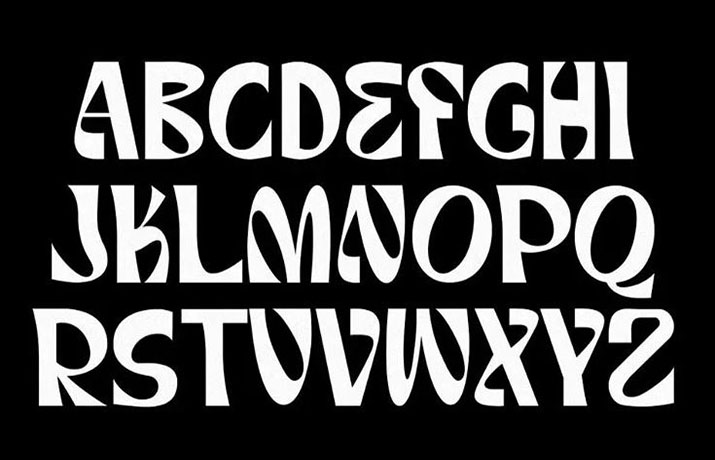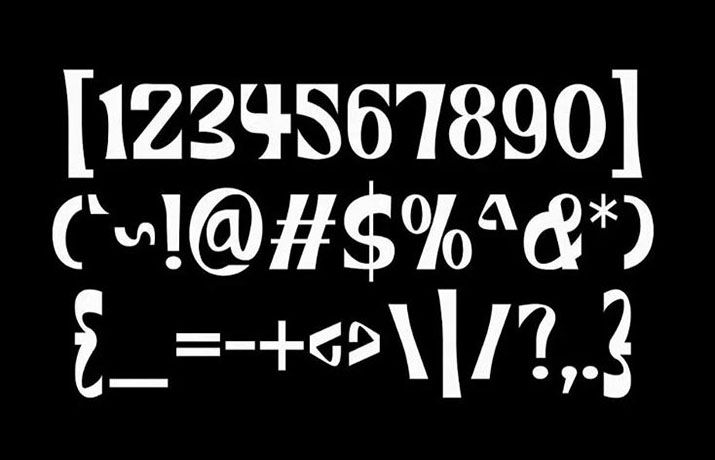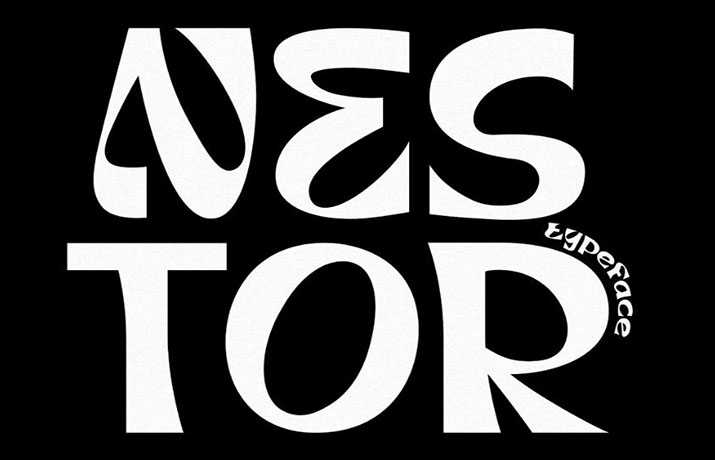
Nestor Font is a retro-inspired display typeface that is certain to catch the eye and thus is a great choice when you are creating titles, labels, and signage.
This bold and elegant font features soft curves, and unique, lovable, and quirky letters. That strong contrast makes it good for advertising campaigns.
Moreover, you can also use it for various creative projects including headlines, advertising, posters, branding, social media, quotes, prints, advertising, brochures, flyers, brochures, and much more.
“Nestor typeface comes in a single regular version along with Open Type features. This font includes 105 unique glyphs, upper & lowercase letters, numbers, symbols, and some punctuation marks. It also supports 62 multilingual languages.”
Style: | Retro, Display, Fancy |
- In addition to many other uses, it’s ideal for headers, advertising, posters, branding, social media, quotes, game graphics, product designs, special event cards, cartoons, titles, flyers, kid-friendly elements, banners on social media, prints, YouTube thumbnails, and much more. For text and display title design, this display typeface is used.
- This bright and lively typeface is perfect for logos, banners, headers, titles, headers, flyers, quotes, funky designs, websites, blogs, children’s books, and even your invitation designs.
This font supports 62 multilingual languages.